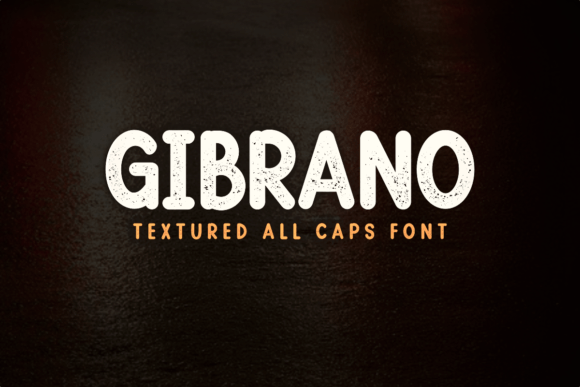
Introducing Gibrano, the epitome of boldness and expression in the realm of display fonts. This textured all-caps font, crafted by the ingenious Deedeetype, is designed to leave an everlasting impact on your creative projects. Gibrano is the embodiment of strength and readability, a font that effortlessly captures attention and conveys your message with unwavering clarity.
Unleash the potential of your designs with Gibrano's thick, solid strokes that command attention and exude an aura of confidence. Whether you're crafting captivating logos, eye-catching headlines, or impactful posters, Gibrano will elevate your work to new heights, ensuring it stands out from the crowd. Its inherent versatility allows it to seamlessly adapt to a myriad of creative endeavors, from branding and marketing materials to social media graphics and website designs.
With Gibrano, your designs will transcend the ordinary, captivating audiences with its bold and expressive nature. Let your creativity soar as you witness the transformation of your projects into masterpieces that resonate with your audience. Experience the power of fonts and unlock a world of endless possibilities with Gibrano, the font that will ignite your imagination and redefine your design aesthetic.